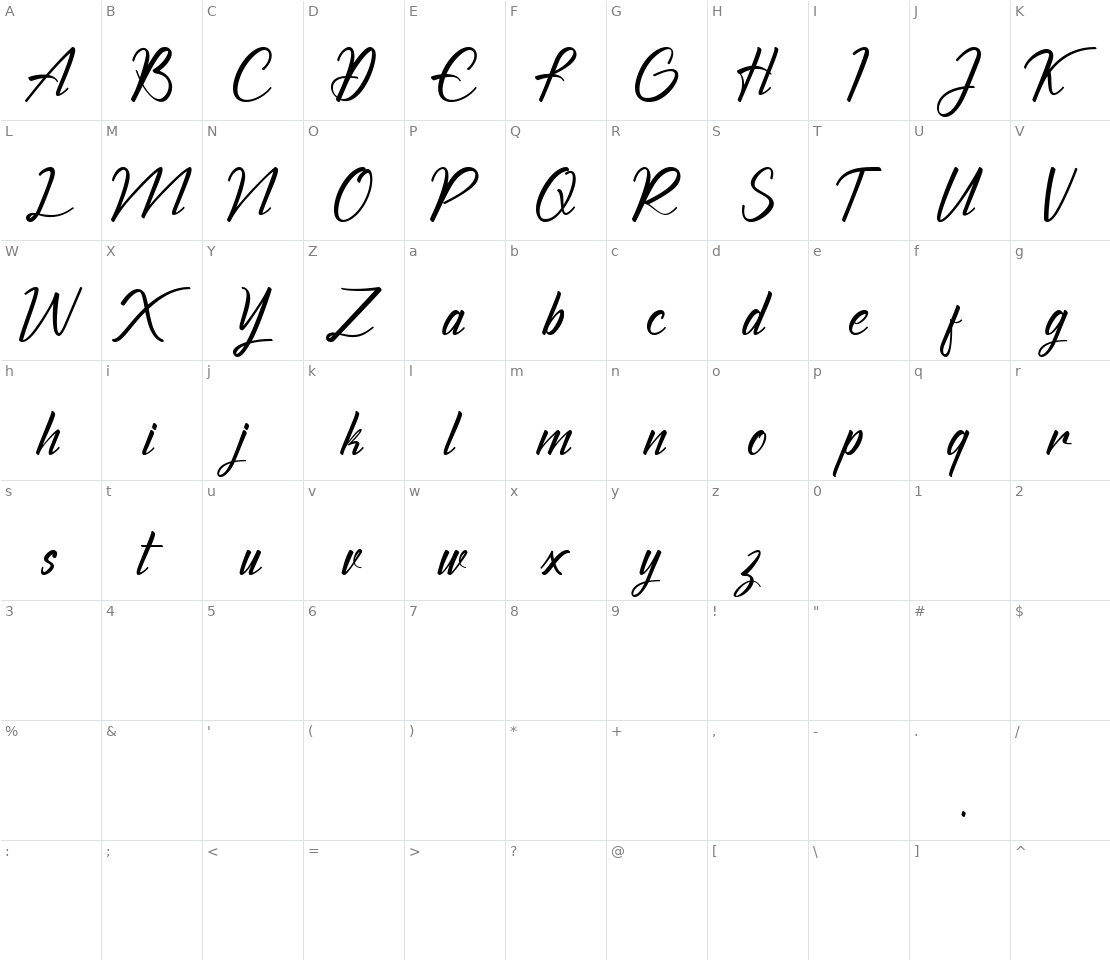
The Chamid
The Chamid is a bold brush italic from Ditoollis Project with sweeping, expressive strokes that carry real forward momentum. The letterforms feel hand-painted and confident, balancing elegance with raw energy in a way that works for headlines, signage, and branding where you want something that looks like it was done in one decisive pass.